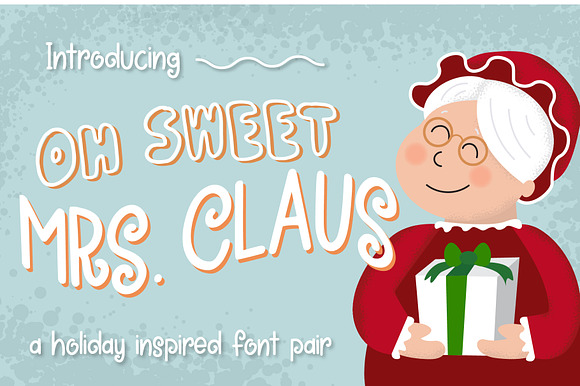
Oh Sweet Mrs. Claus Font Duo
Oh Sweet Mrs. Claus Font Duo by TuNeuwin is a font selected for branding, posters, packaging, typography.
Oh Sweet Mrs. Claus Font Duo by TuNeuwin fits naturally into Branding, posters, packaging, typography.